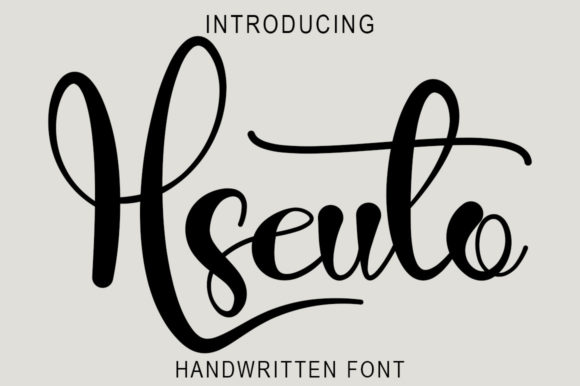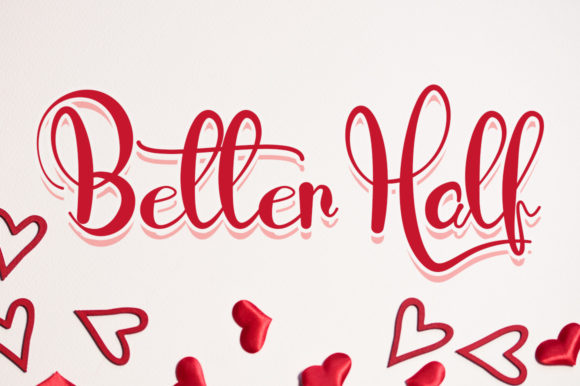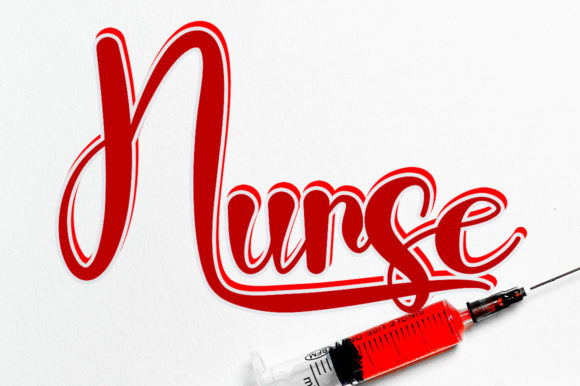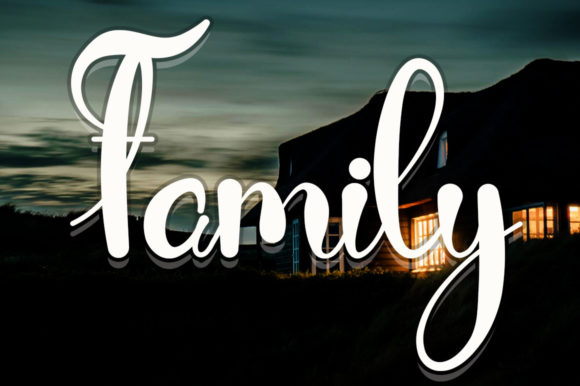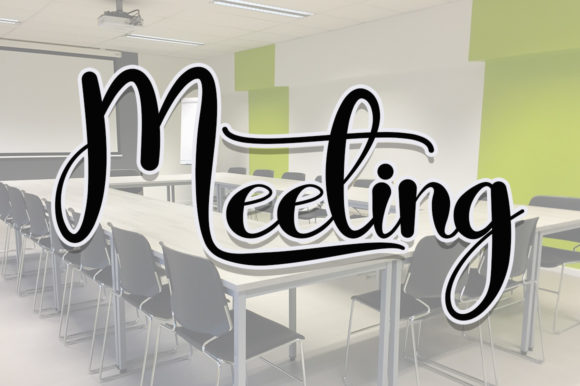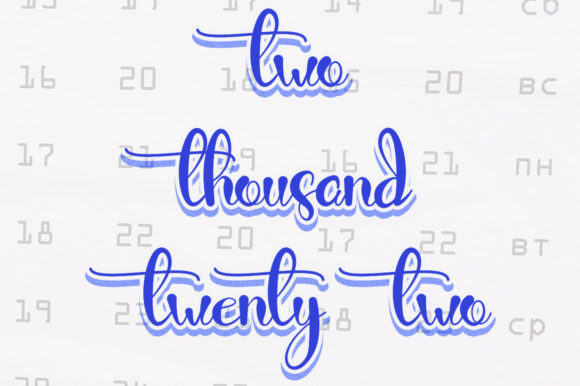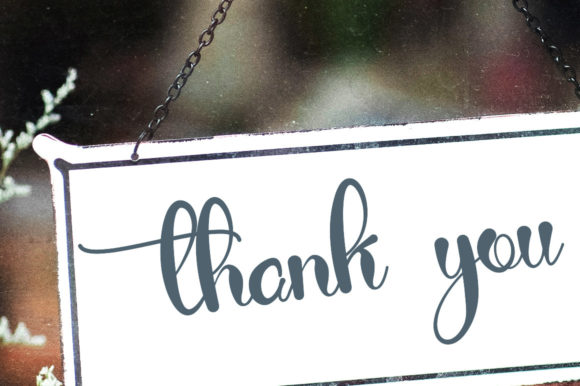
Hseuto Font
About Hseuto Font
Hseuto is a delicate and elegant handwritten font. Its distinct and well balanced letters make this font a masterpiece. Fall in love with its incredibly versatile style and use it to create spectacular designs!